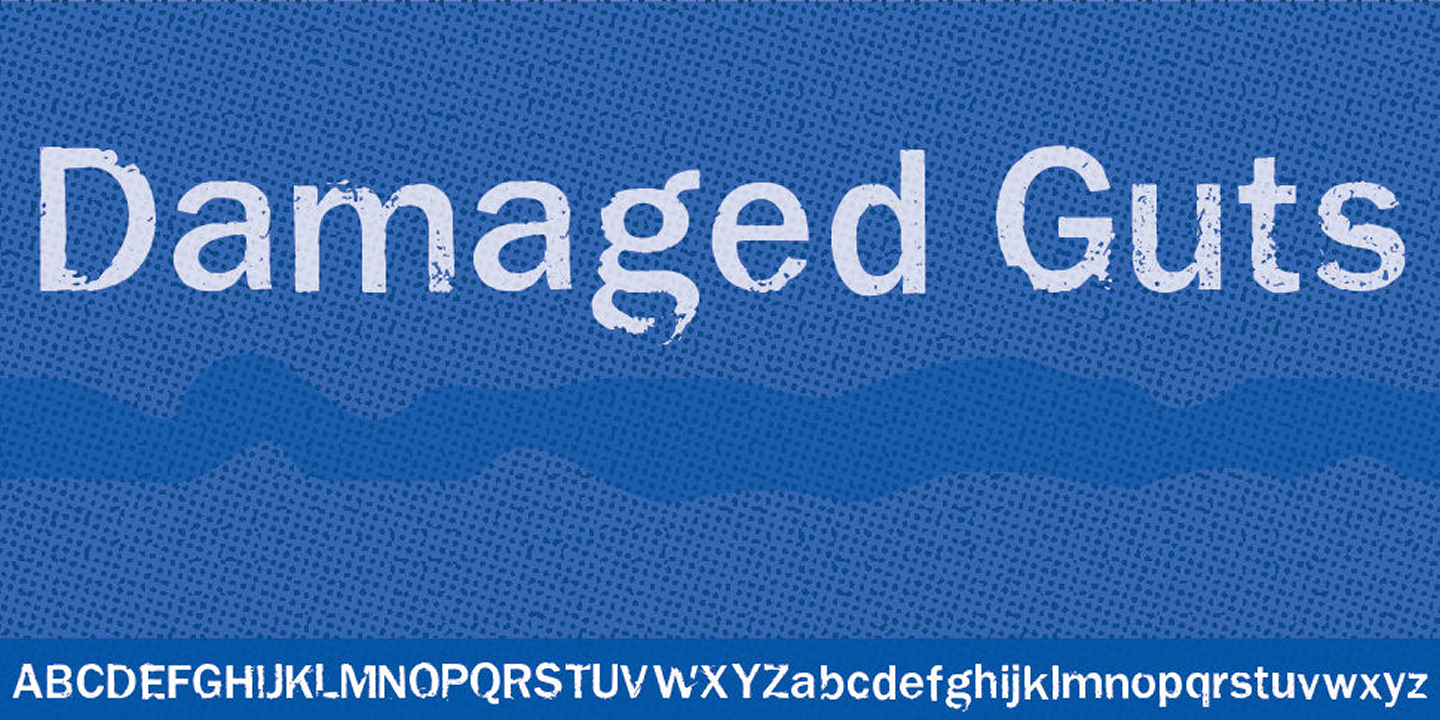
The Damaged Guts Font excels in various design applications including gritty urban art branding, distressed street culture marketing, raw alternative music promotions, edgy underground event materials, rugged industrial design communications, weathered vintage signage, brutal honest storytelling layouts, authentic grunge band identities, raw emotion expression projects, and powerful alternative projects that demand damaged authenticity and gritty sophistication.
What makes the Damaged Guts Font exciting is its raw embodiment of authentic struggle and unfiltered emotional expression through letterforms that capture the essence of weathered experience and the honest beauty found in damaged resilience. This typeface demonstrates exceptional character through carefully distressed letters that suggest the worn texture of life's challenges, the authentic scars of real experience, and the powerful honesty that comes from embracing imperfection and finding strength in vulnerability. The font's damaged personality makes it perfect for alternative brands and authentic storytellers seeking to communicate raw honesty, emotional authenticity, and the kind of genuine expression that resonates with real human experience through typography that literally bears the marks of authentic struggle.
The Damaged Guts Font family typically includes distressed weight variations that enhance the gritty aesthetic, featuring weathered styling options and extended character sets optimized for alternative communications and underground applications. These family options often include damage-inspired alternates, distressed symbols, and authentic decorative elements that provide designers with comprehensive tools for creating genuinely alternative typography that celebrates raw expression while maintaining contemporary design appeal and underground credibility.
Alternative culture professionals and authentic storytelling brands consistently select Damaged Guts Font Free Download for projects requiring typography that communicates raw authenticity and emotional honesty. This typeface delivers exceptional performance in alternative marketing, underground branding, and authentic communications where establishing credibility and demonstrating genuine emotional expression is essential for alternative community connection. The font's damaged character makes it particularly effective for music and storytelling applications. Download Damaged Guts Font Free Download today to access this emotionally powerful typeface that transforms alternative communications with its raw authenticity and damaged sophistication, creating compelling emotional experiences that honor the magnificent strength found in vulnerability while celebrating the honest expression that defines authentic alternative culture and genuine human resilience.